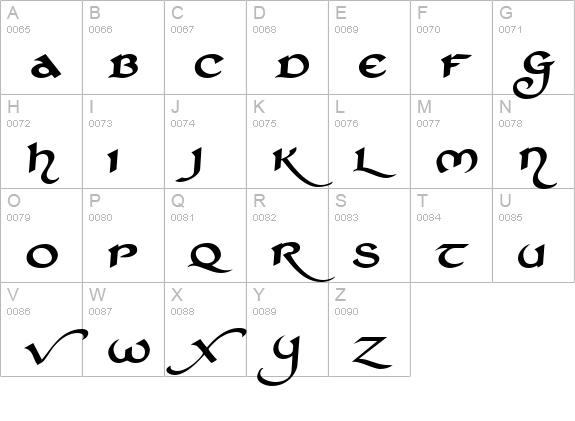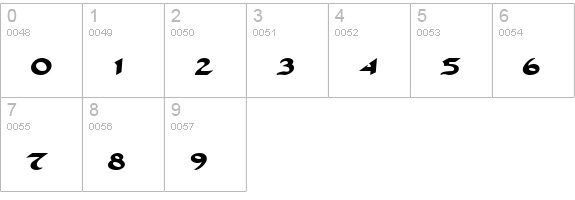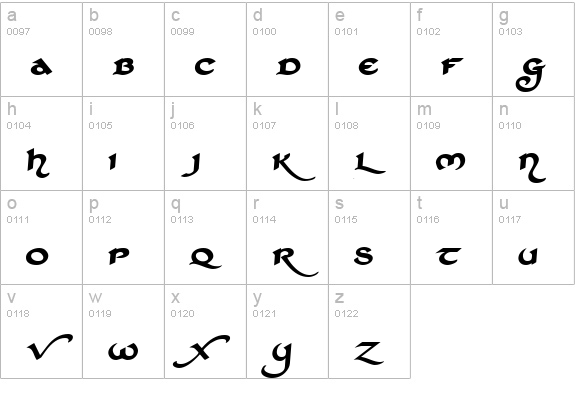
St Charles Extra Dark Font Details
St Charles Extra Dark font is a visually striking typeface that exudes elegance and sophistication. Its bold and commanding letterforms make a powerful statement, making it the perfect choice for headlines, titles, and other attention-grabbing designs. This font features a unique blend of sharp edges and smooth curves, creating a harmonious balance between strength and grace. Its extra dark weight adds an element of drama and intensity, making it ideal for projects that require a strong visual impact. Designed with meticulous attention to detail, St Charles Extra Dark font offers exceptional legibility and readability, ensuring that your message is conveyed clearly and effectively. Whether you're designing a logo, poster, or website, this font will captivate your audience and leave a lasting impression. What sets St Charles Extra Dark font apart is that it is not only visually stunning, but it is also freely available to download at FontsMarket.com. This means that you can access this incredible font without any cost, allowing you to unleash your creativity without any limitations. With St Charles Extra Dark font, you have the freedom to create bold and captivating designs that stand out from the crowd. Its versatility and timeless appeal make it suitable for a wide range of projects, from branding and advertising to editorial and packaging design. Embrace the power and elegance of St Charles Extra Dark font and elevate your designs to new heights. Download it for free at FontsMarket.com and unlock a world of creative possibilities.